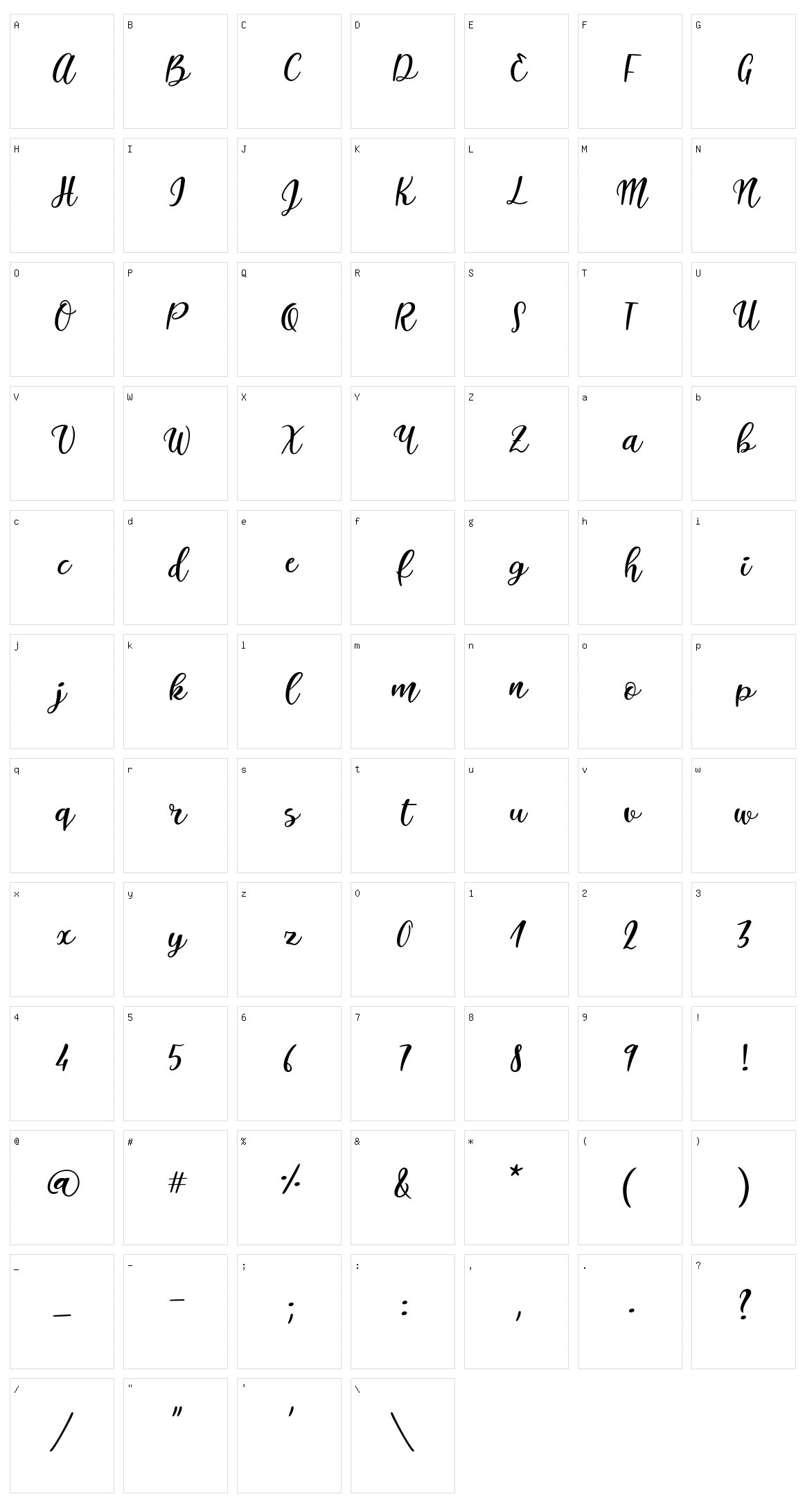
Italian Breakfast
ÿþA handwritten, fun and happy modern calligraphy script font with carefully crafted, clean vectors. You can create beautiful hand-made typography with its bouncy, organic flow. Italian Breakfast is perfect for all your creative projects wether it be
* indie logos,
* printed quotes,
* invitations,
* greeting cards,
* Instagram posts,
* products, packaging,
* blog headers etc.